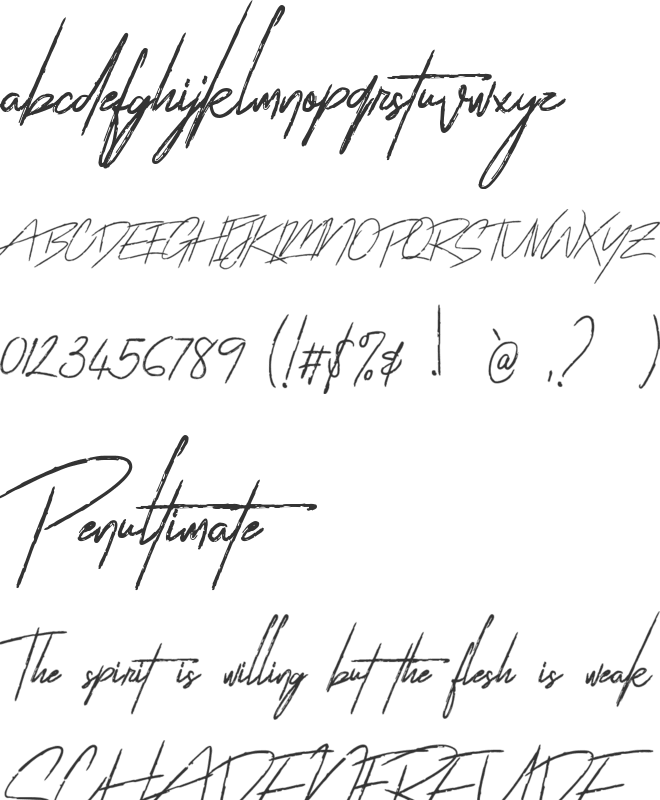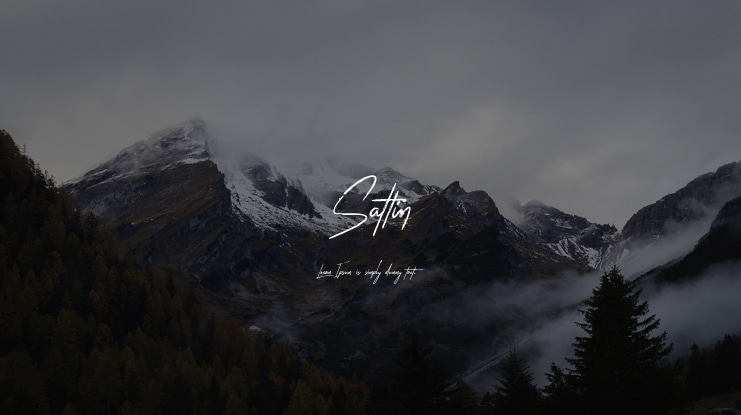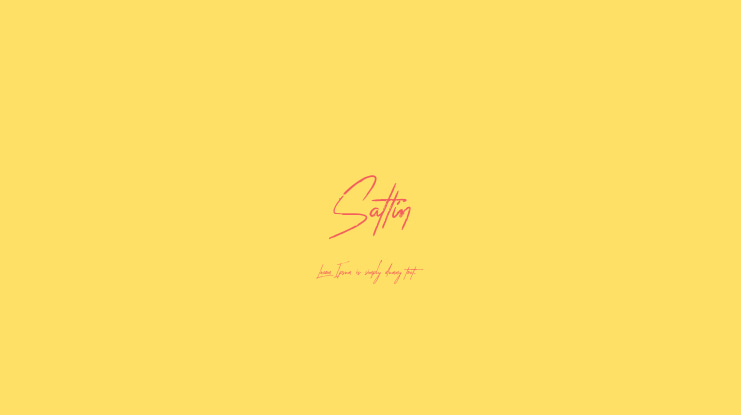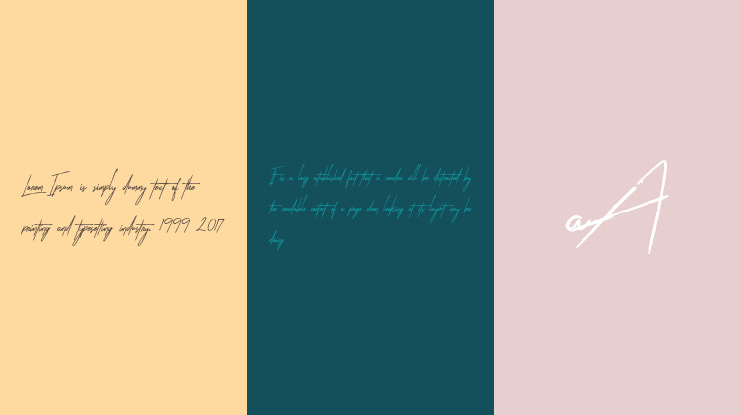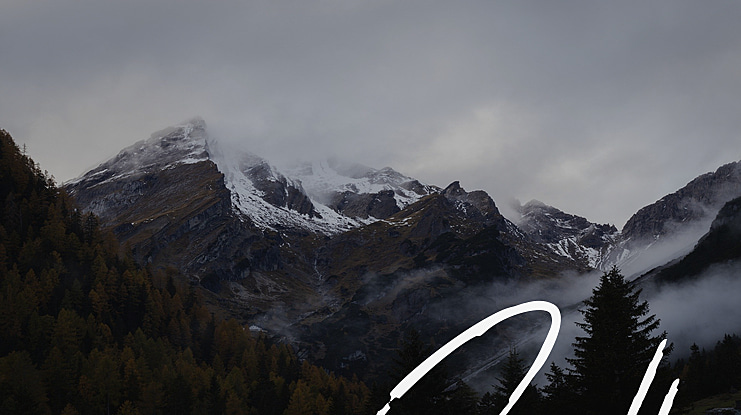
Sattin Font Family
Khaiuns
Introducing Sattin Font Duo - Two types of fonts with a modern serif style and Script which has an elegant style flow with two fonts having textures